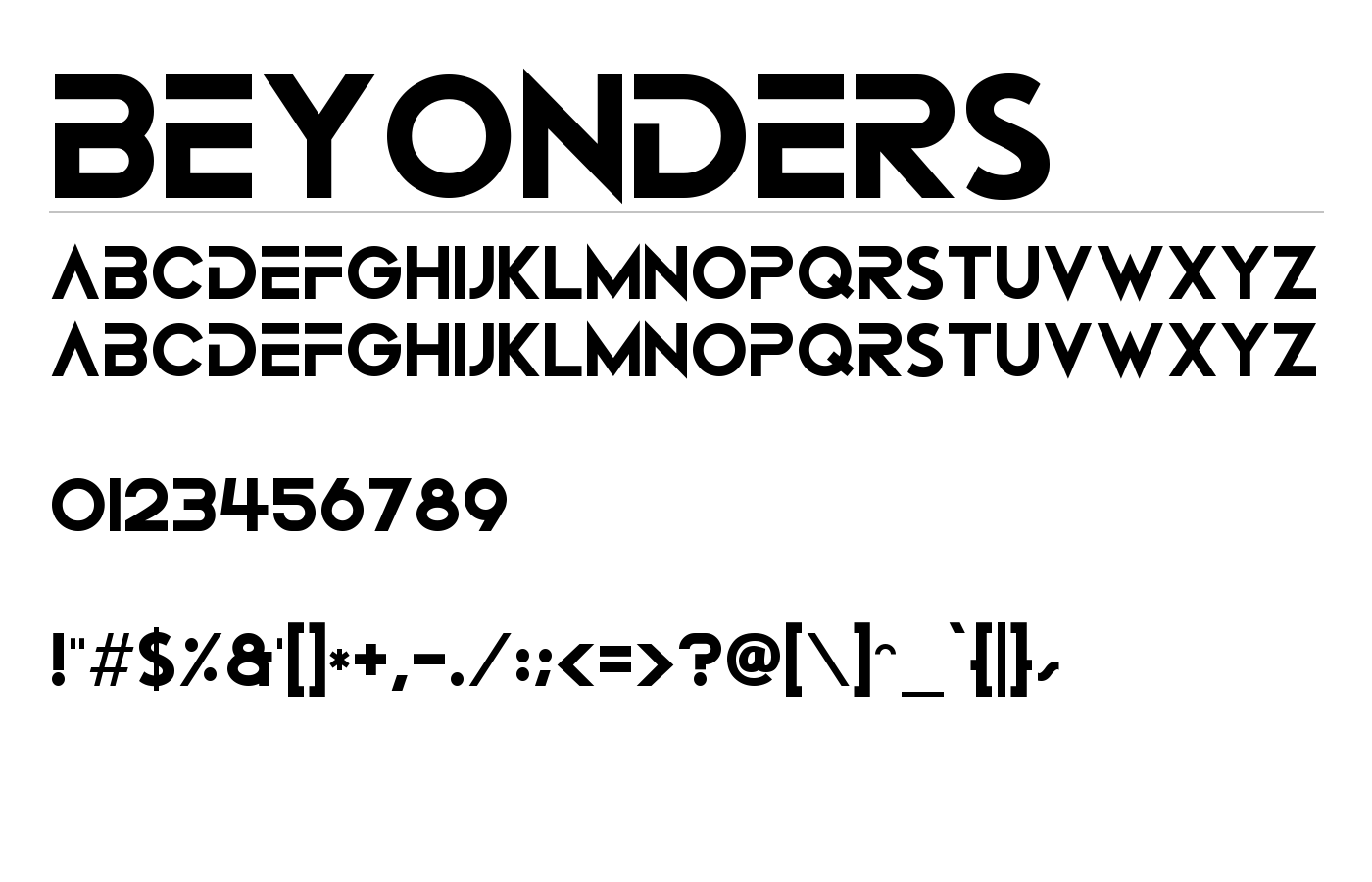
Beyonders is a bold, geometric sans serif font with a futuristic and modern vibe, characterized by sharp angles and a high contrast between solid and open sections in each letterform. Its clean, sturdy shapes and unique cuts give it a strong, tech-forward personality, making it ideal for striking logos, headlines, and branding in industries like technology, gaming, and innovation. This font works well where a contemporary and confident look is needed to stand out and convey cutting-edge style.
Beyonders Font